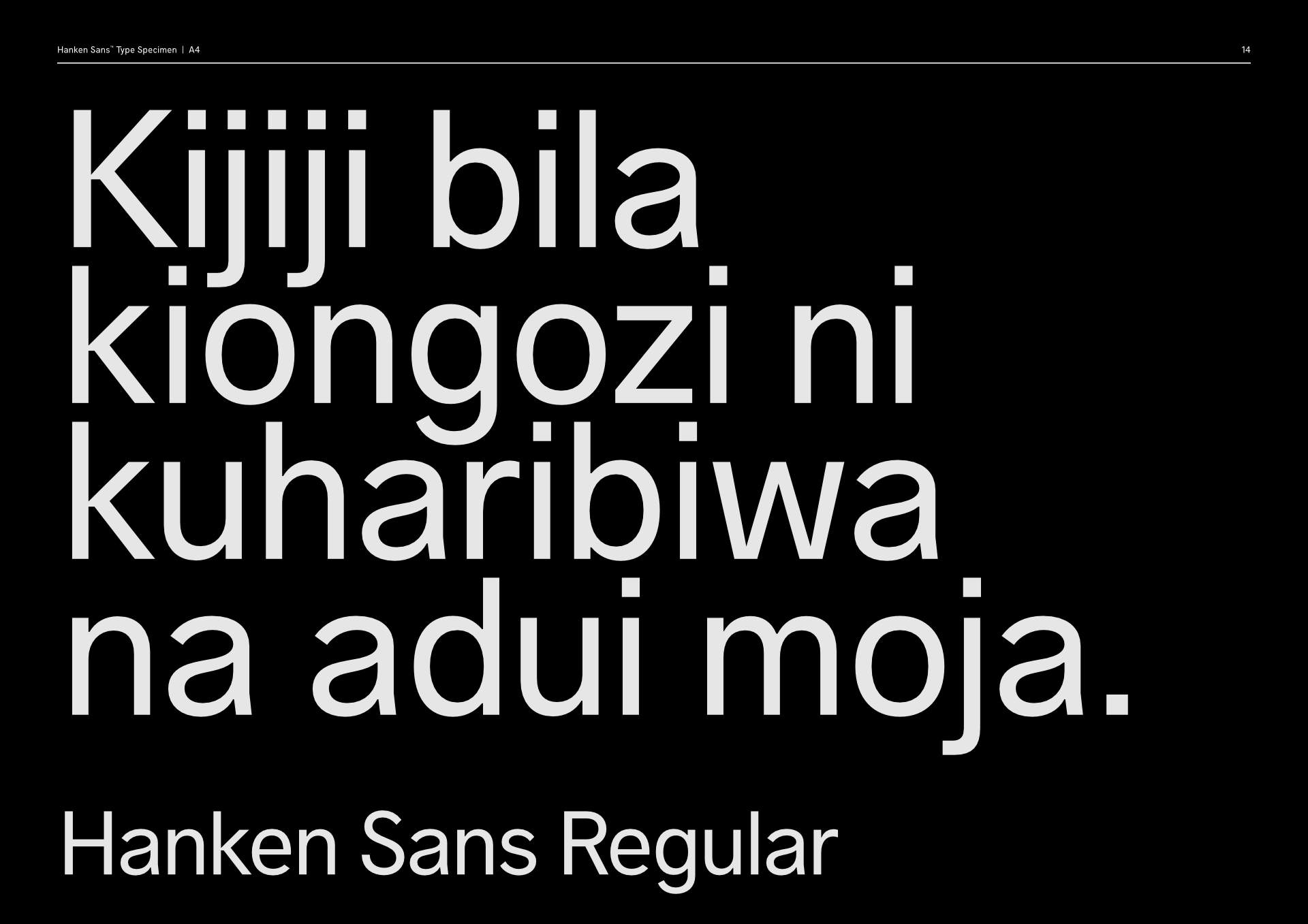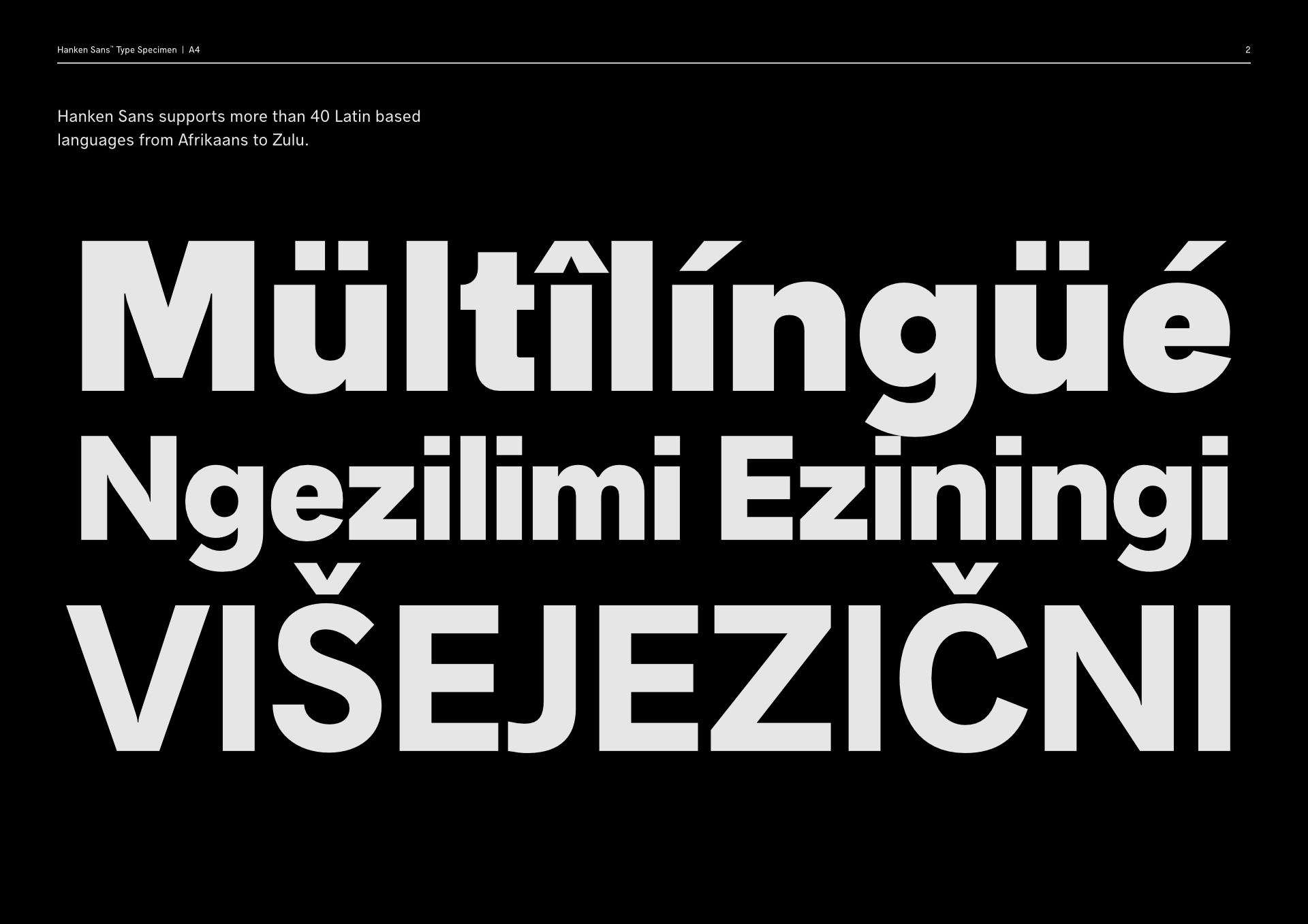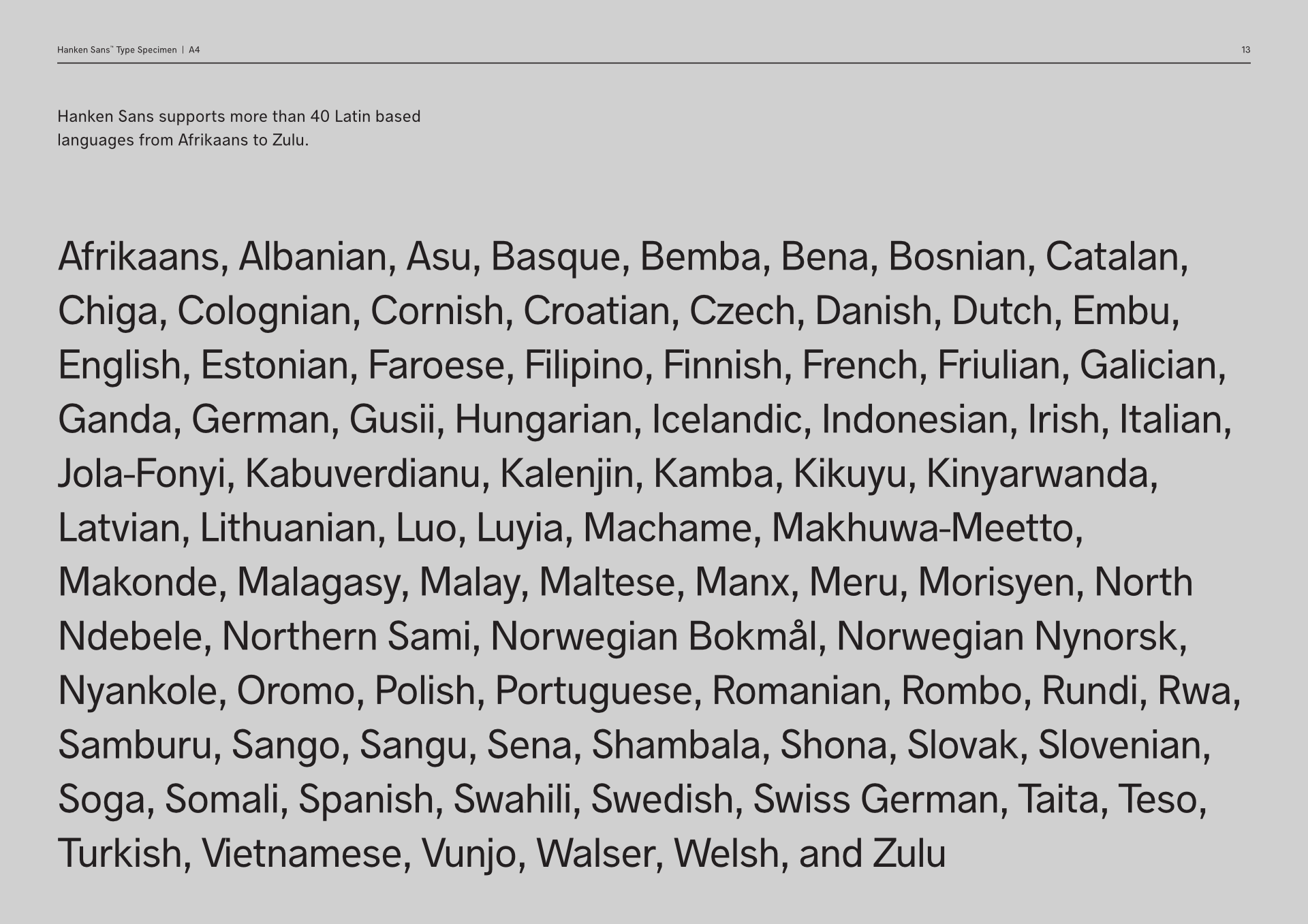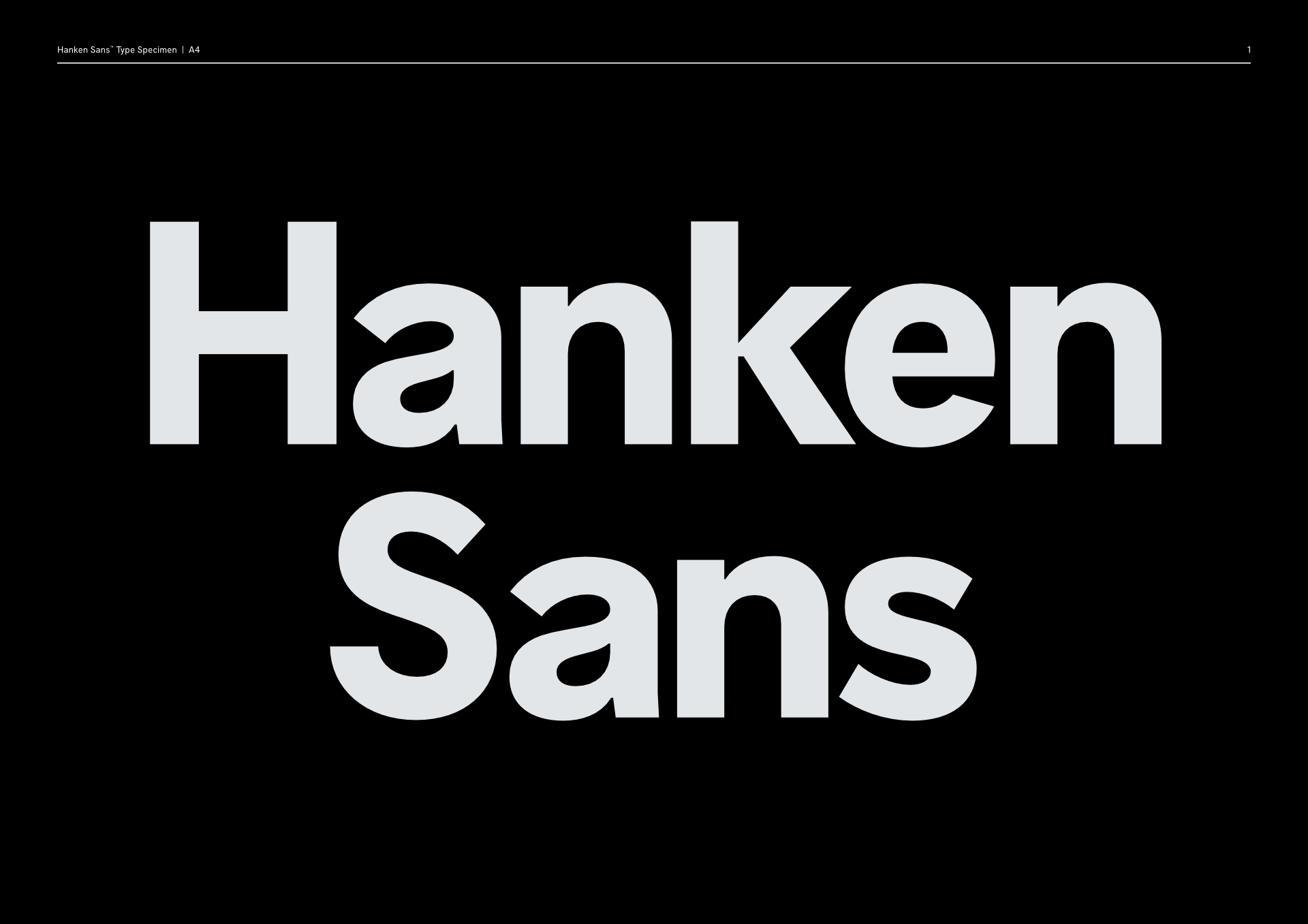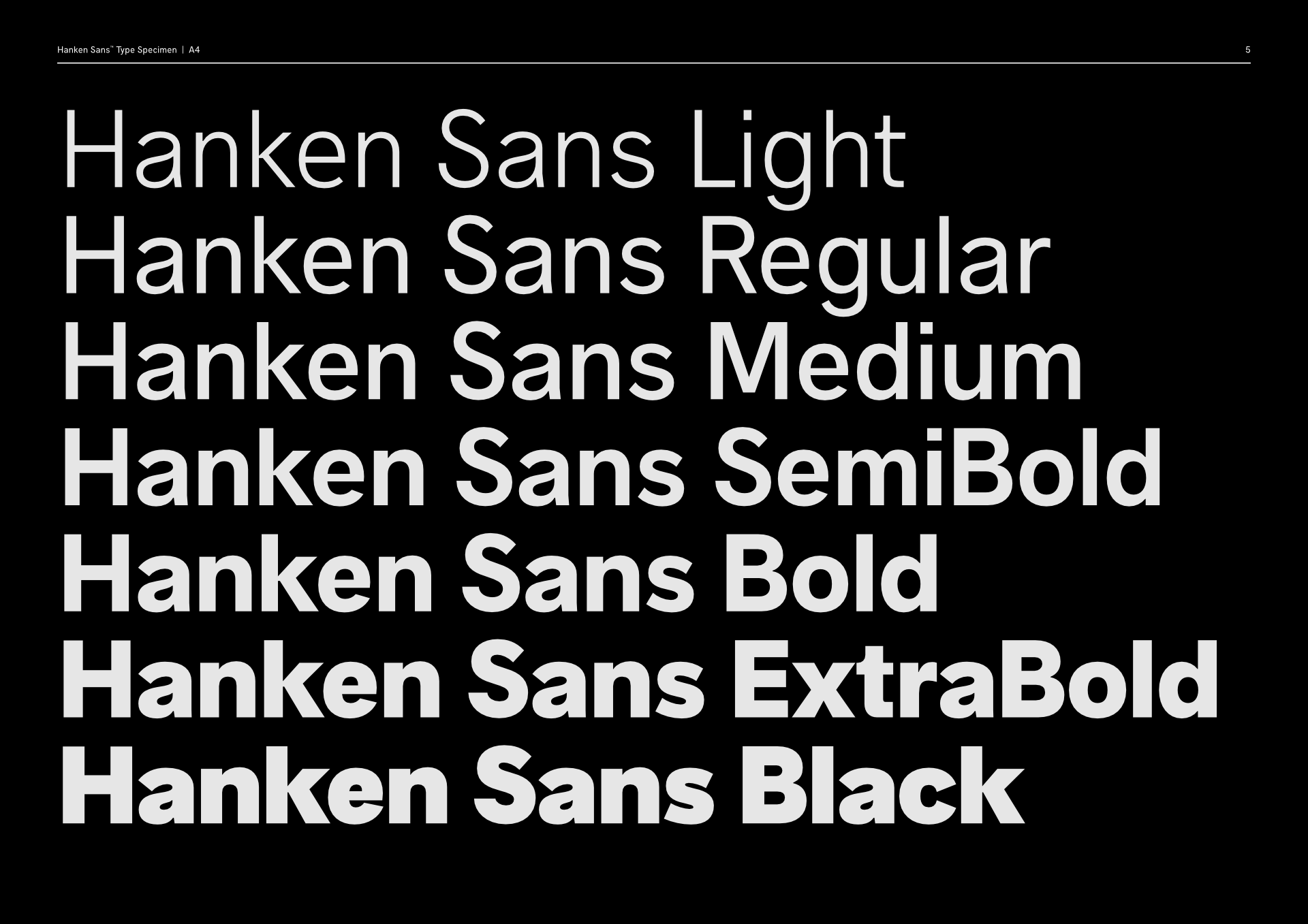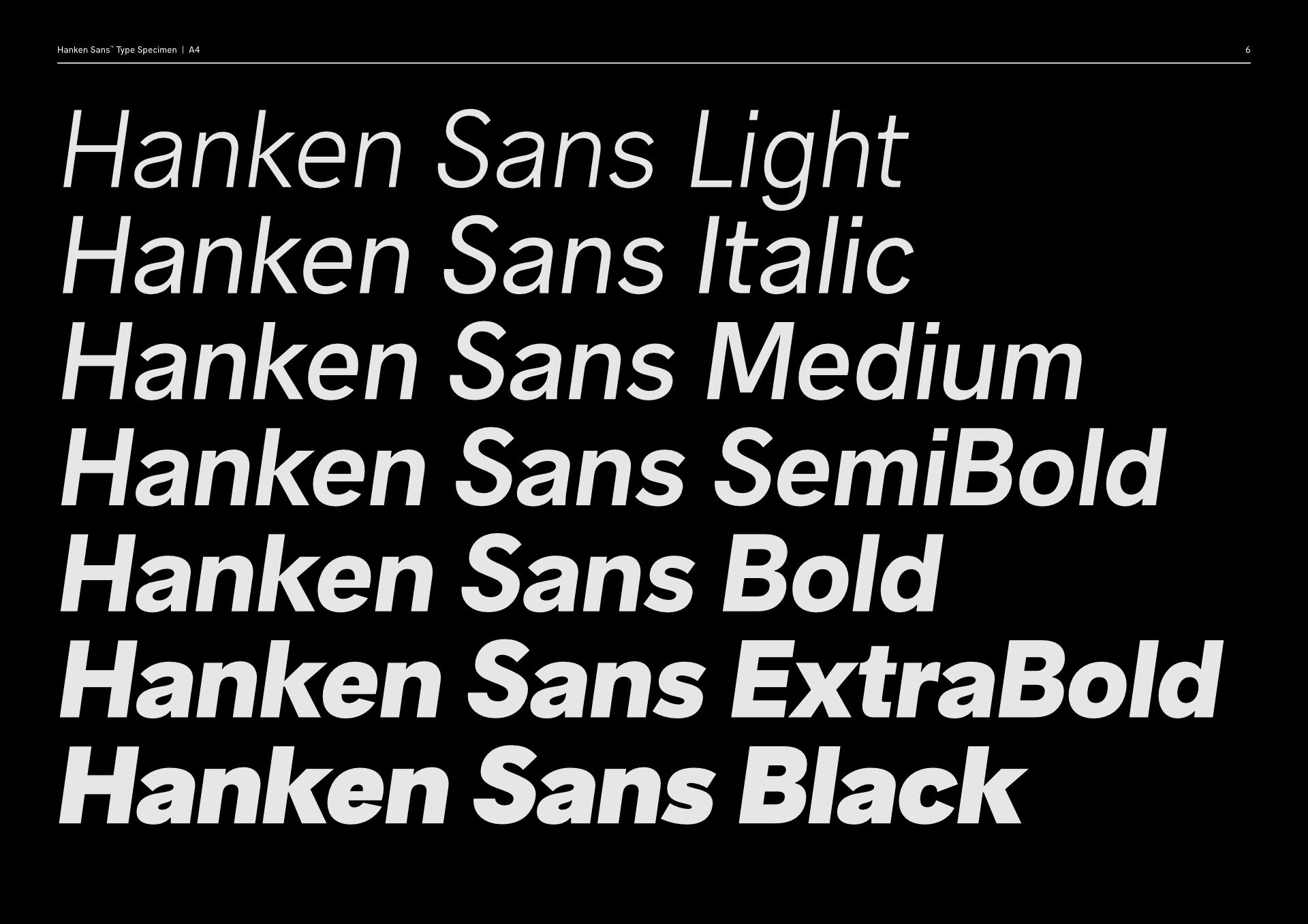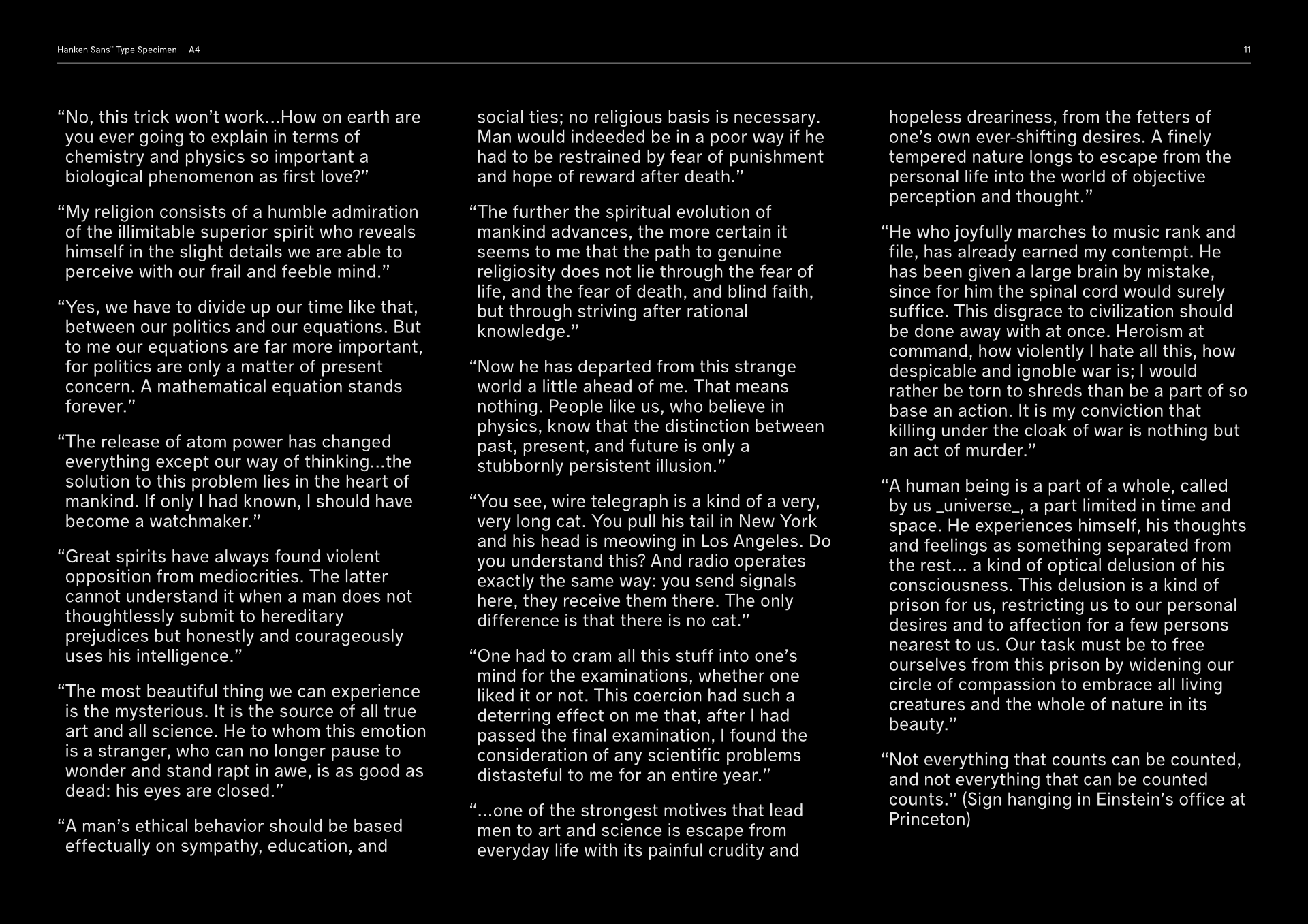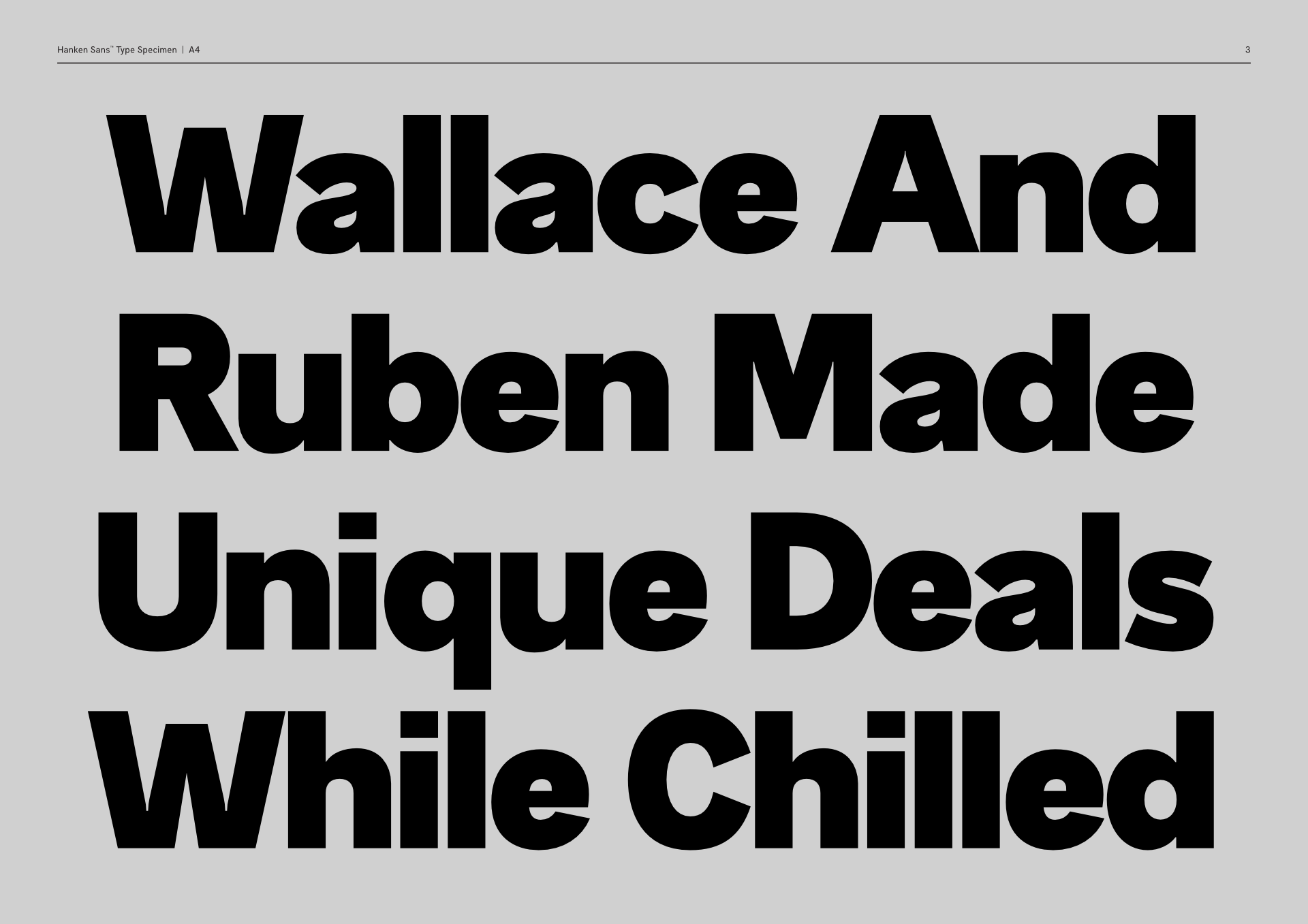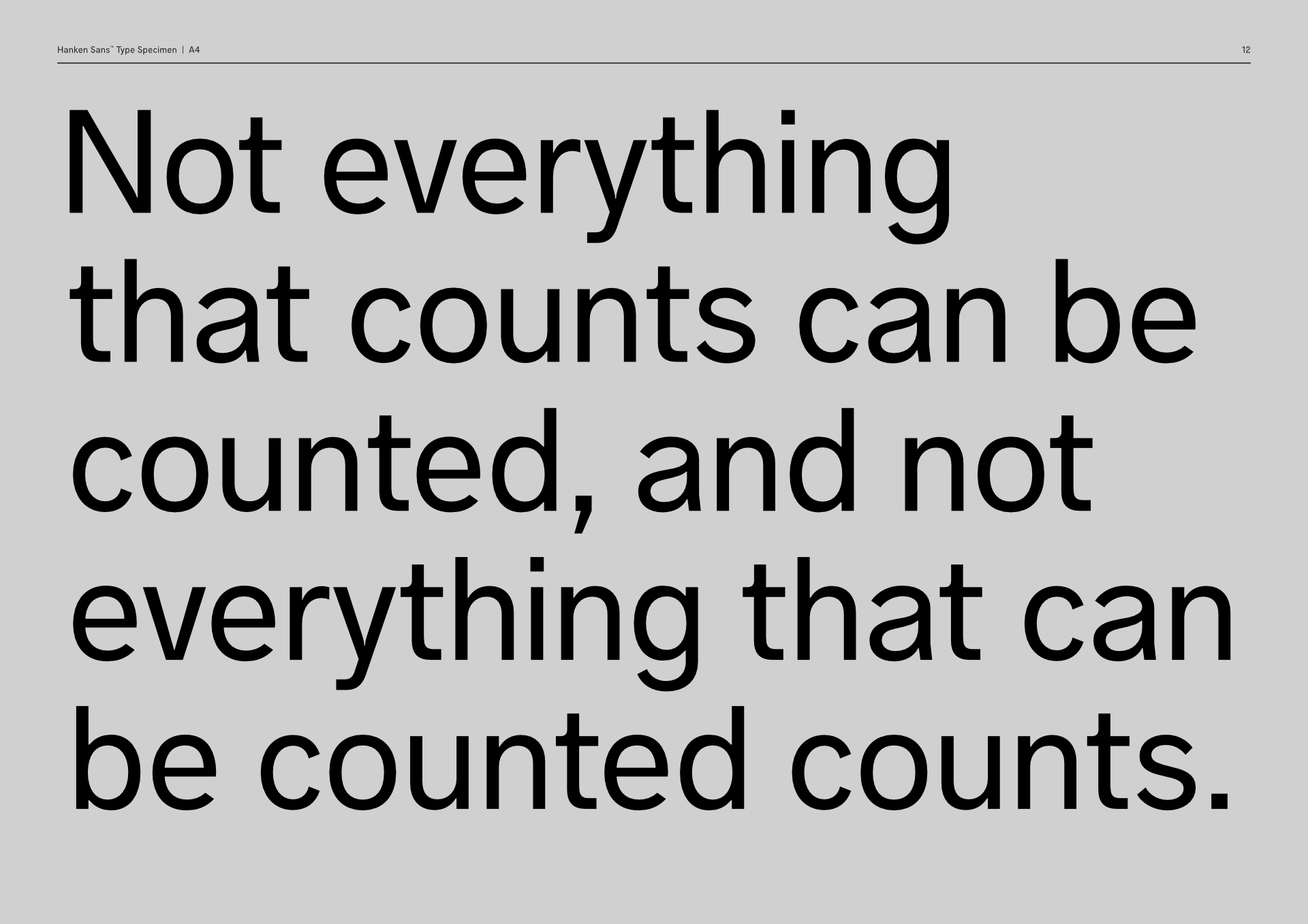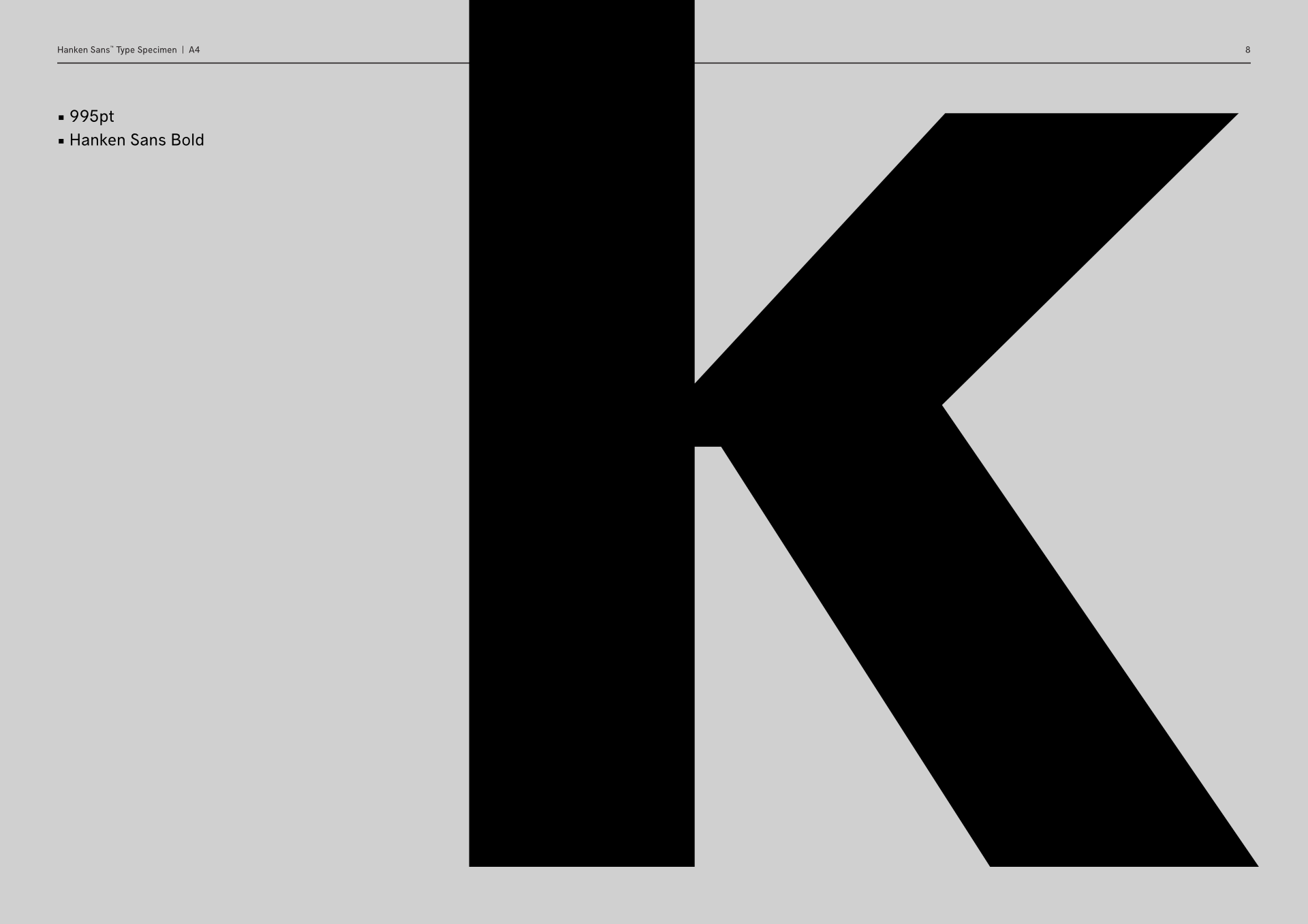
Hanken Sans is a basic and multi-purpose sans serif typeface that can be used in a wide range of topics/projects. Weights in the family: Light, Regular, Medium, SemiBold, Bold, Extrabold, and Black.
Design+Development: Alfredo Marco Pradil
Company: Hanken Design Co.
Class: Sans Serif, Grotesque